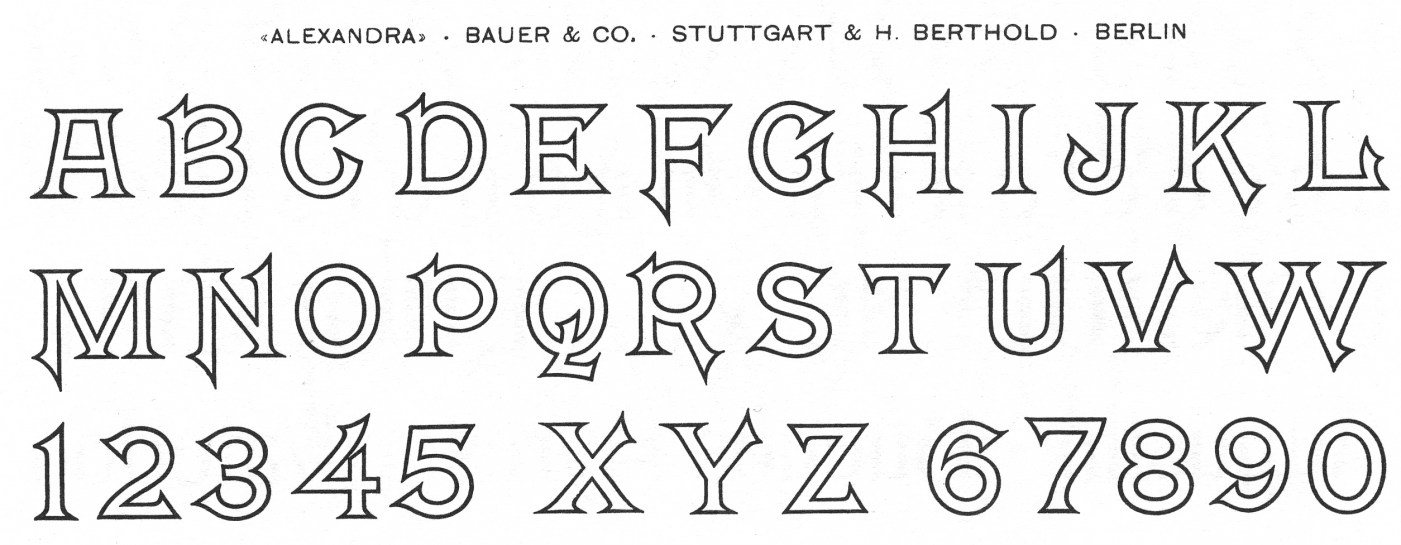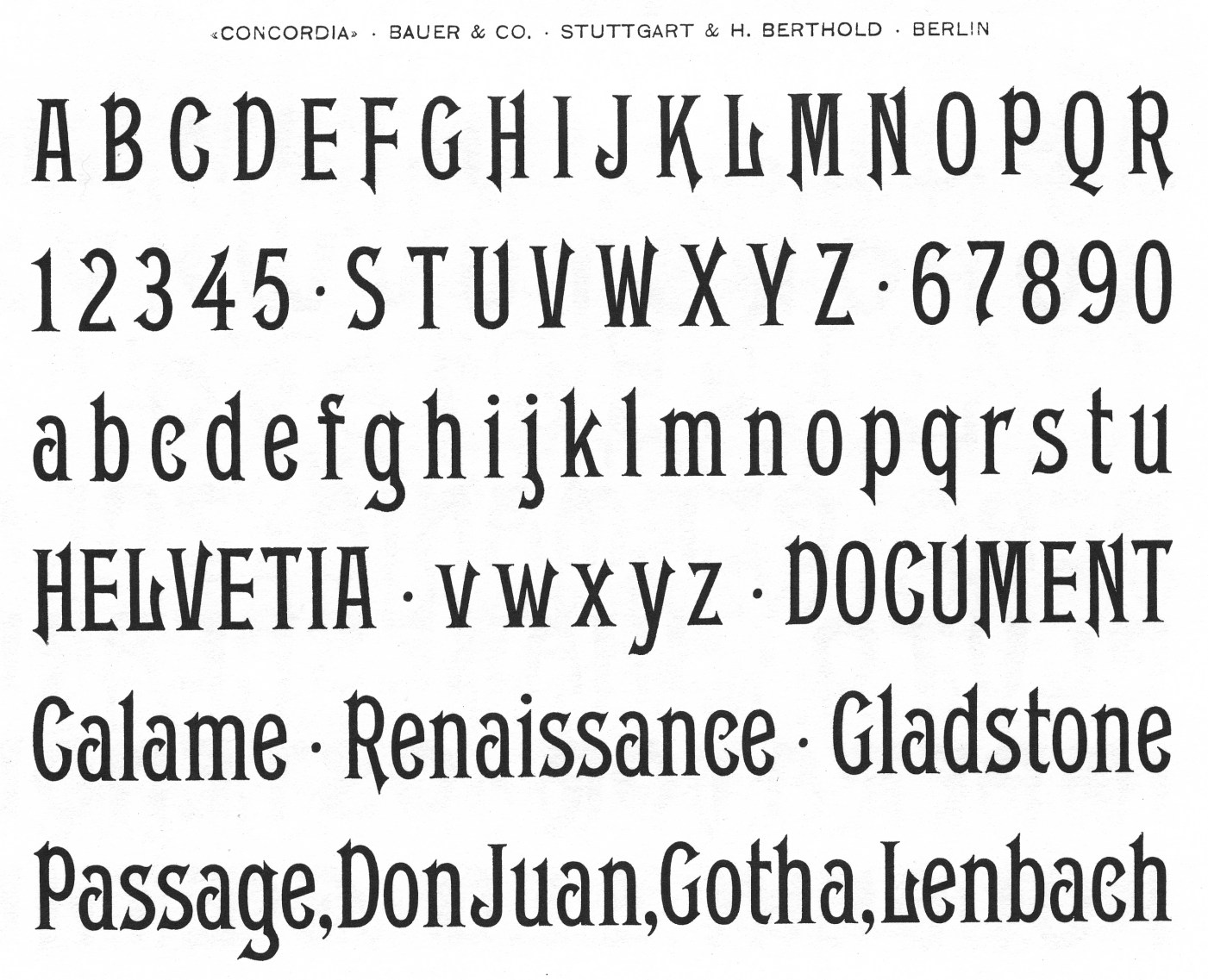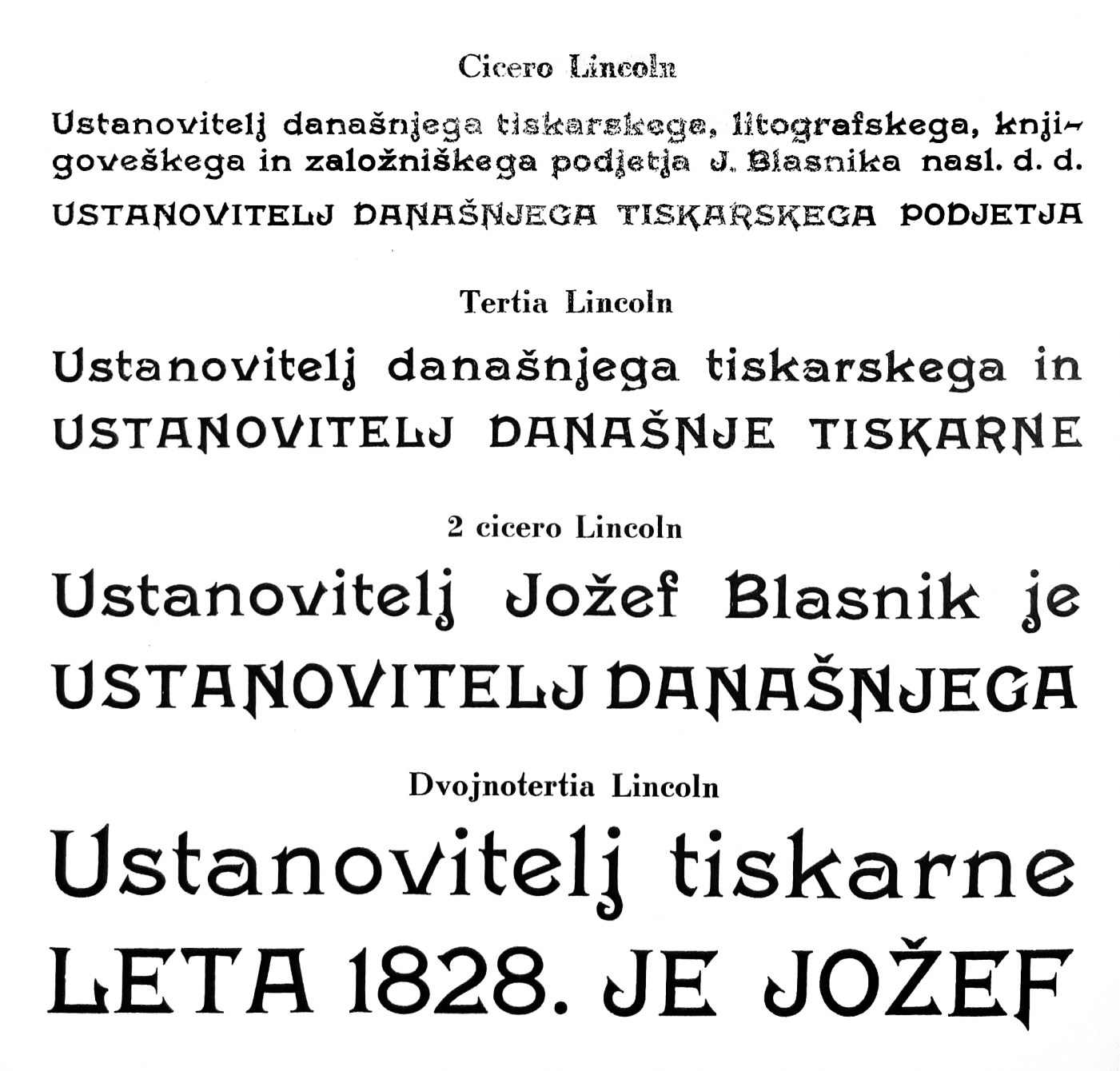
Identification of an Art Nouveau / Victorian headline typeface (1880-1900)
This is my first post. I am a student of graphic design at the Academy of Fine Arts and Design (University of Ljubljana, Slovenia). For my Bachelor's degree assignment I chose to revive a typeface I found in an old book (from 1901 to be exact, printed in Slovenia, probably with types imported from Germany, as Slovenia never had its own typefoundry.). I thought it would be best to get as much information on it as possible, so I am posting this here in hopes of getting some answers. I already loosely concluded that the source of this typeface is Bauer & Co or Berthold.
So, here are the main questions I am looking for answers to:
1.Does anyone happen to have any more information on the original typeface, maybe a name or scanned specimen sheet, maybe the name of the designer? (All I could find was that it was probably first cut by Bauer & Co., maybe by Berthold AG - They took over Bauer & Co. at some point if I understand correctly - sometime between 1880 and 1900 – version with just capital letters was sometimes called Alexandra, and a condensed version that has some letterforms differently shaped was called Concordia)
3.Would any of you have any advice for me on this project?
x. Does anyone know how could one classify this typeface, or maybe even what would this type of serif be called (bracketed, slur,...)
I have come across the Gable Antique already, but Webster is the better match, and the Fonts in Use is's page about the American versions is truly incredibly useful, so thank you very very much!
I have also came across a font called Mephisto which an all caps revival of the same typeface (by Scriptorium), but they dont refer to any source, I have contacted them but for now, they haven't replied.